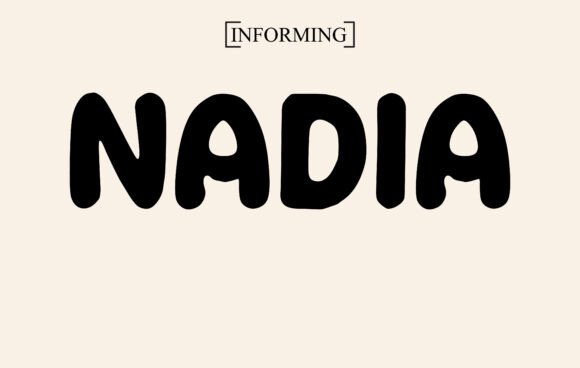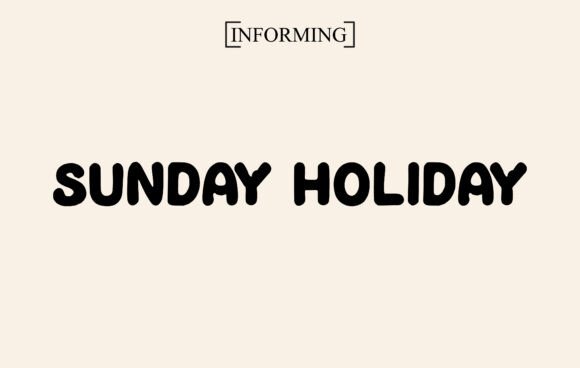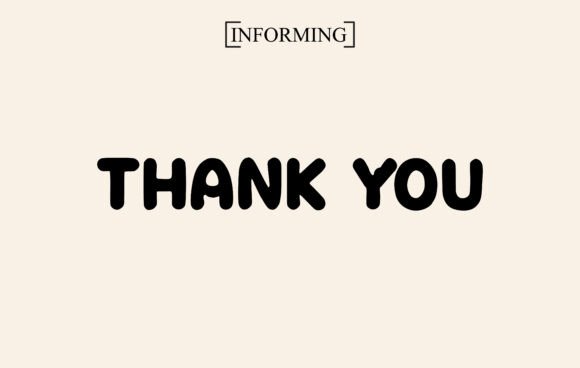
Nadia Font: A Bold Display Font for Playful Branding & Cute Headlines
About the Nadia Font
Meet Nadia Font, a stunning font that brings a touch of elegance and professionalism to any design. Nadia is designed to be a true favorite; this font has the potential to take your creative ideas to the highest level
Nadia’s confident, slightly playful personality makes it ideal for headlines, short-form text in branding materials, and eye-catching posters. It works well for packaging designs that need a touch of elegance without sacrificing readability. However, its decorative elements make it less suitable for large blocks of body text or UI elements where clarity and efficiency are paramount.
Pairing Nadia with a clean sans-serif like Open Sans for body text provides excellent contrast and readability. For a more luxurious feel, consider pairing it with a classic serif like Garamond. A geometric sans-serif such as Montserrat could also create a modern and balanced aesthetic.
Ultimately, Nadia is best suited for projects that demand attention and convey a sense of sophisticated fun; brands aiming for a youthful yet upscale image would find it a perfect fit.
Nadia Font Usage Examples
Nadia Font Example